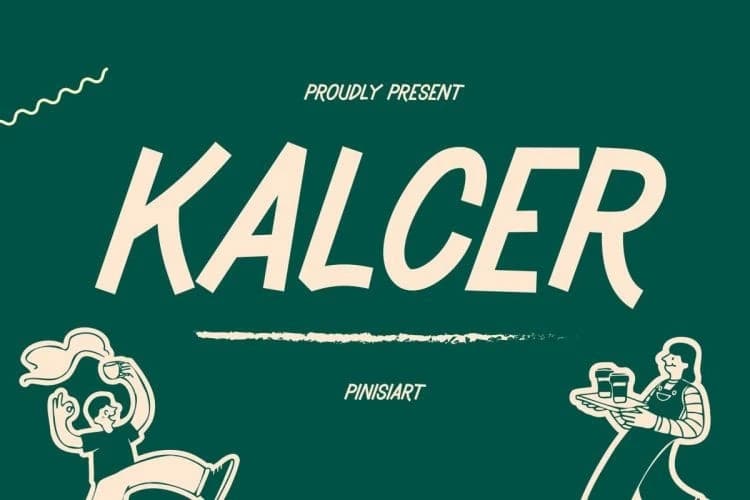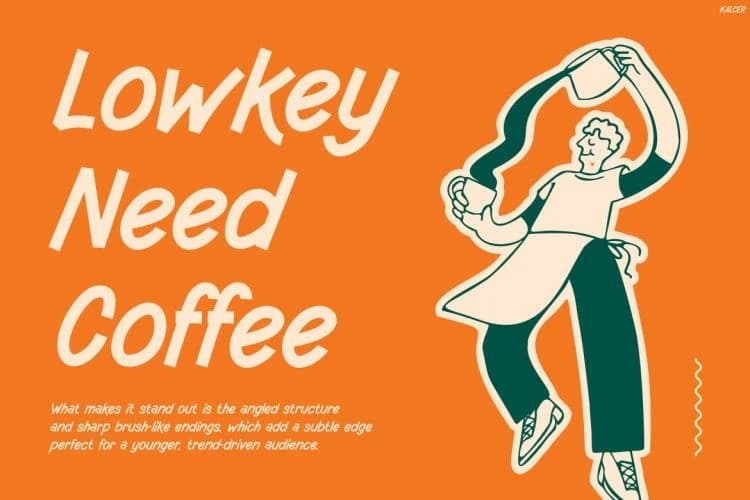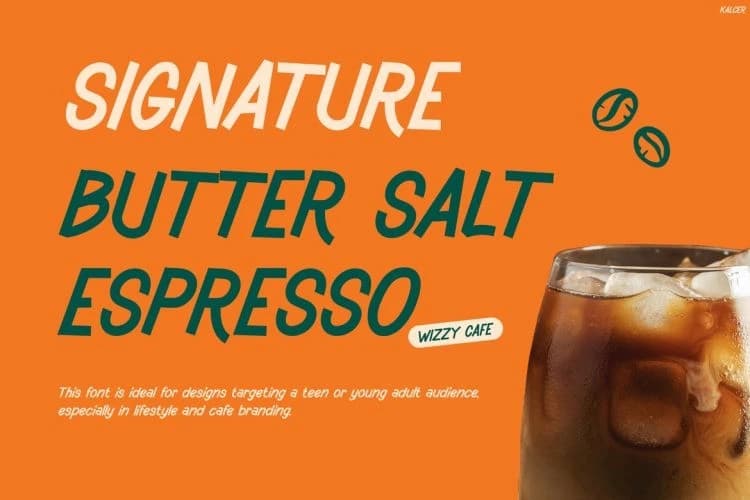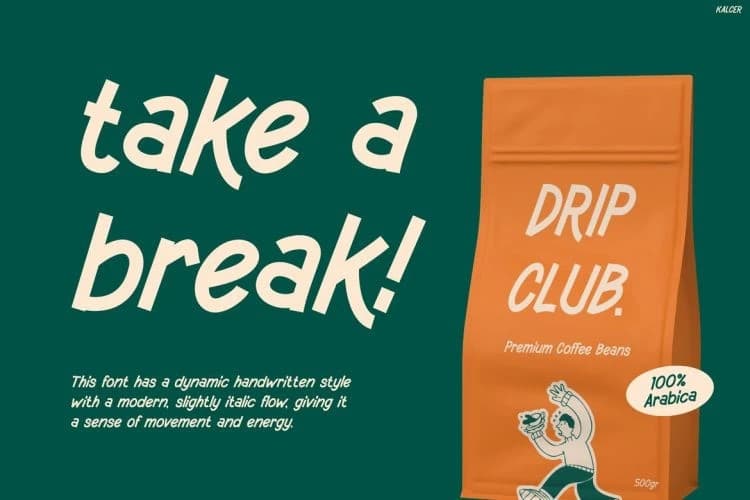
Kalcer Playful Font is a vibrant, hand-drawn display font that instantly captures attention with its bold personality and expressive strokes. Moreover, its playful yet slightly edgy aesthetic blends organic curves with dynamic letterforms